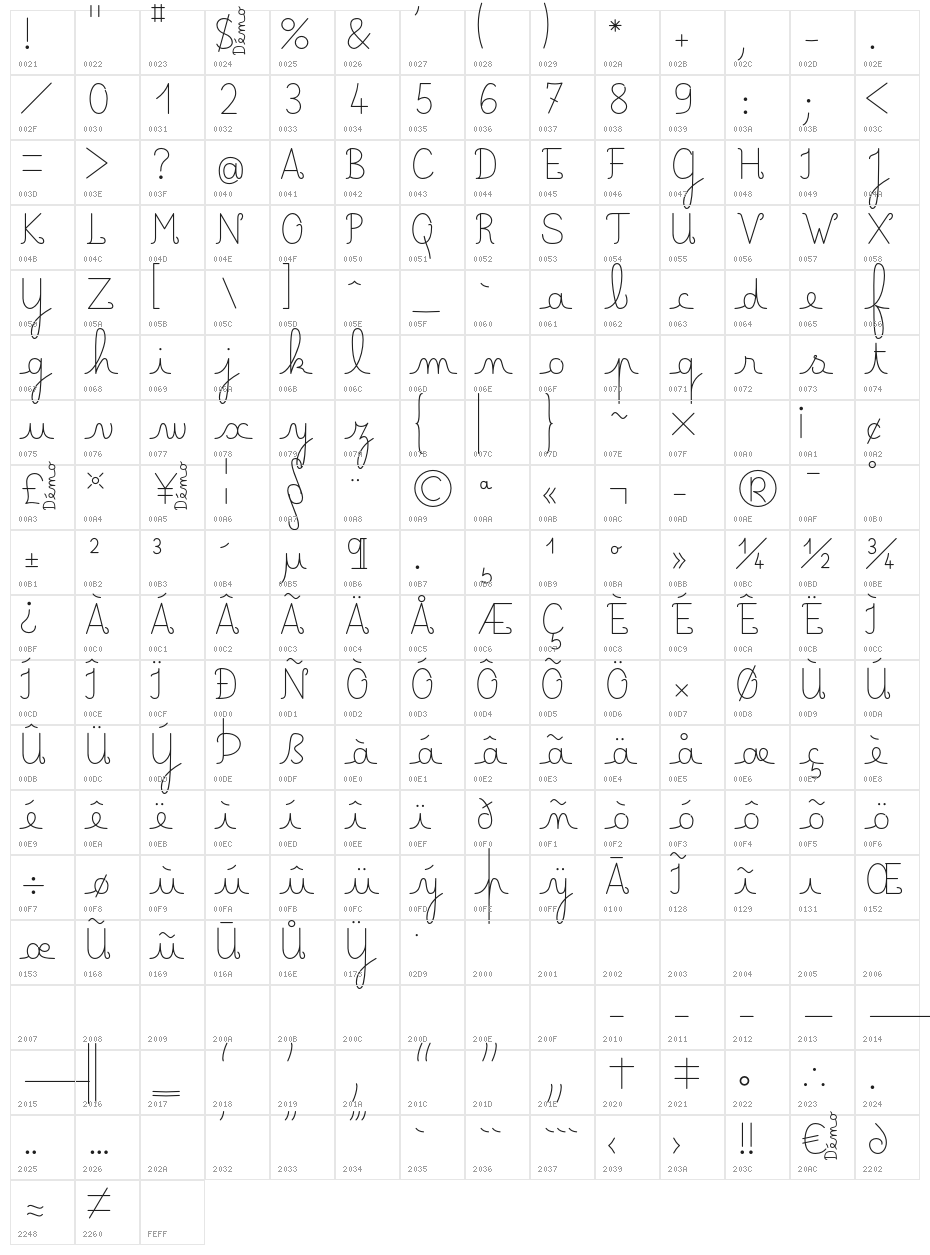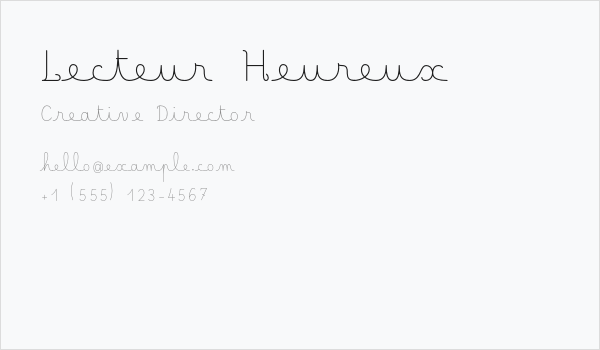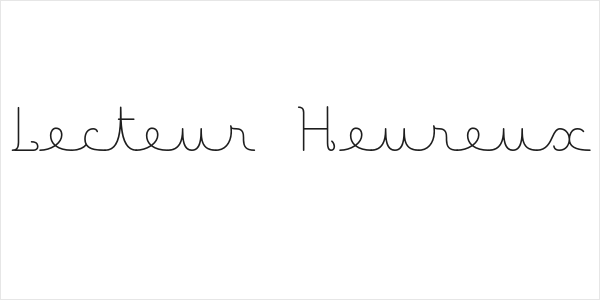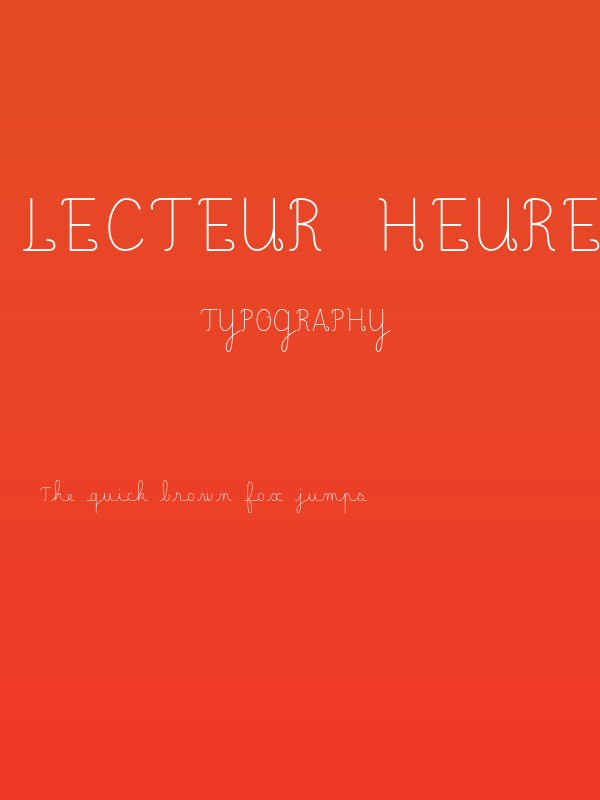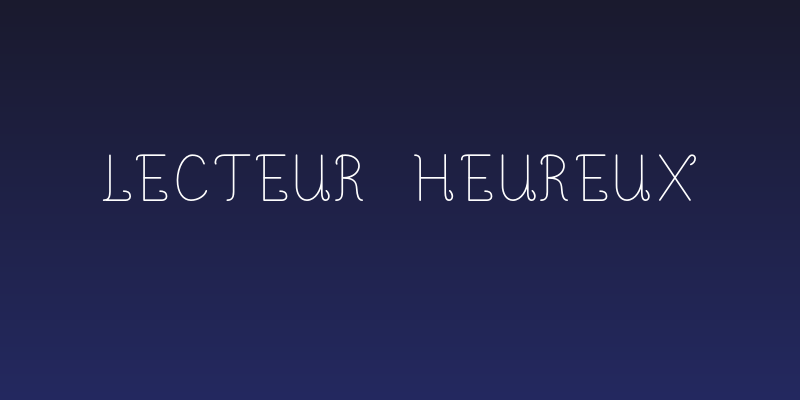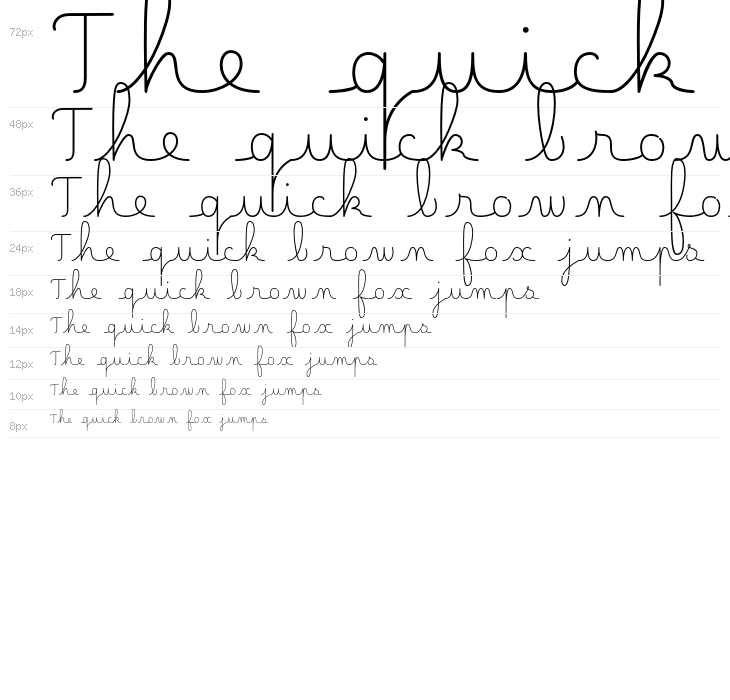
Lecteur Heureux Font
Lecteur Heureux Description
This font features a whimsical and playful design with a handwritten style. The uppercase letters have a unique flair with extended strokes and loops that add character and charm. The lowercase letters maintain a consistent flow, mimicking a cursive handwriting style that is both elegant and approachable. The numerals are clean and straightforward, complementing the overall aesthetic. Special characters are thoughtfully designed, maintaining the playful and artistic theme. This font is ideal for projects that require a personal touch, such as invitations, greeting cards, or creative branding.
Use CaseHeadlines, Logos, Creative projects
Proposed ProjectsIdeal for invitations, greeting cards, creative branding, and artistic projects.